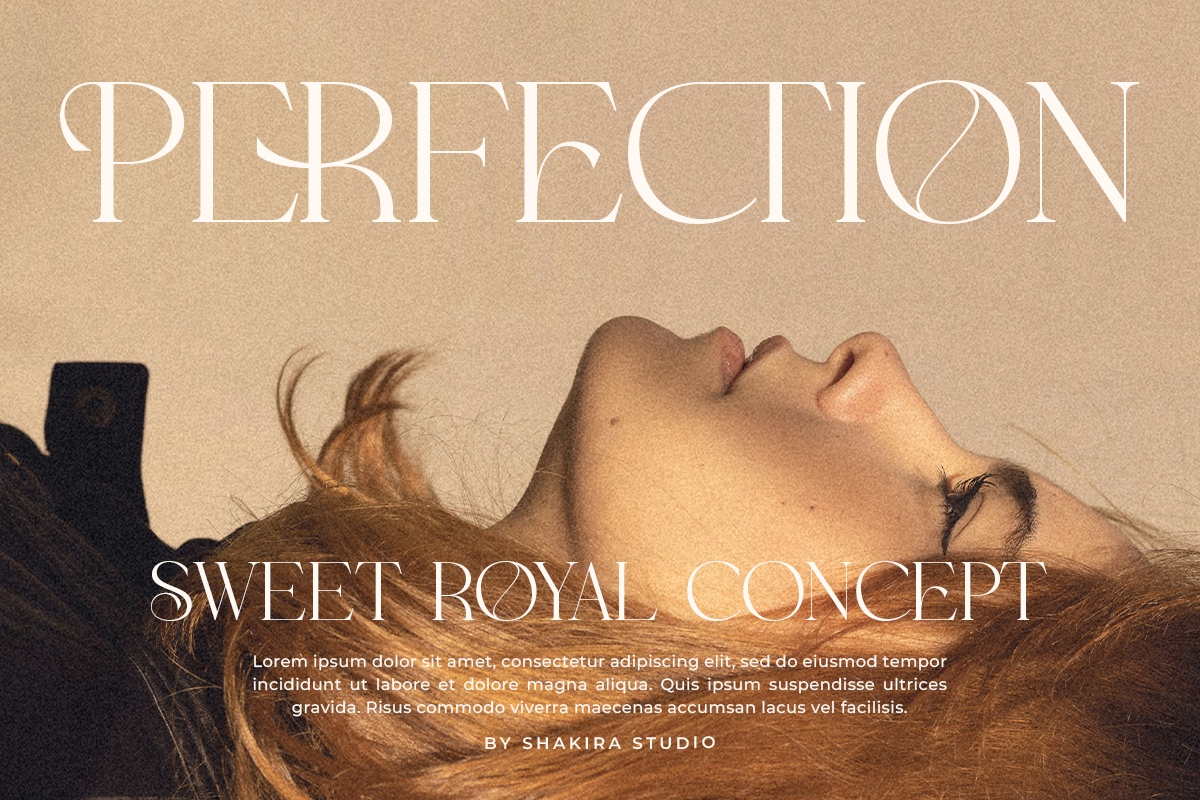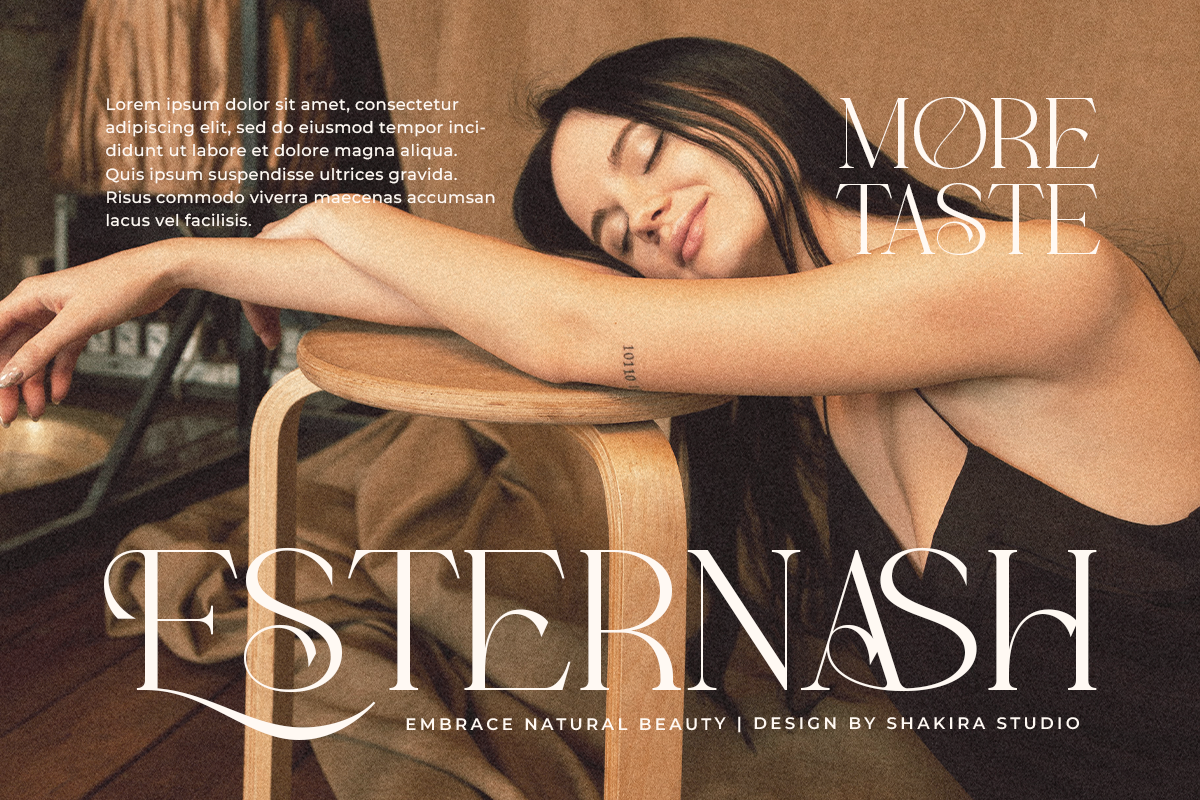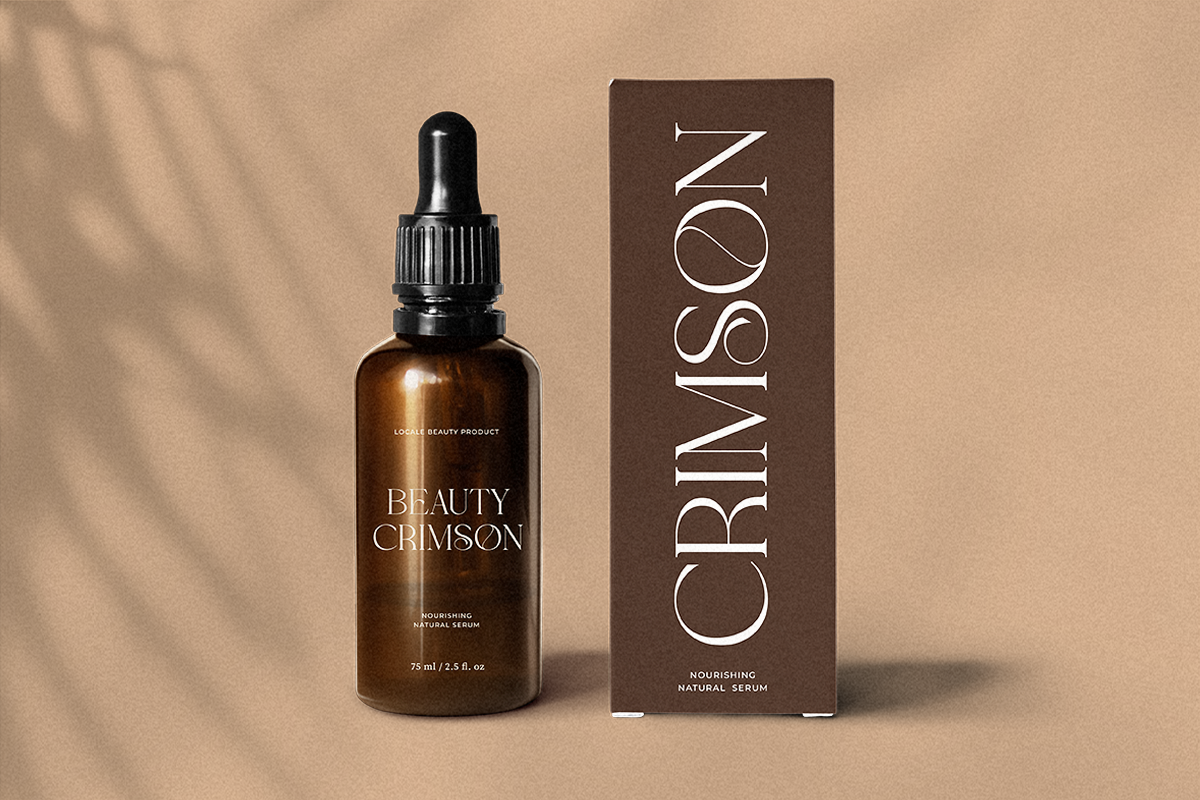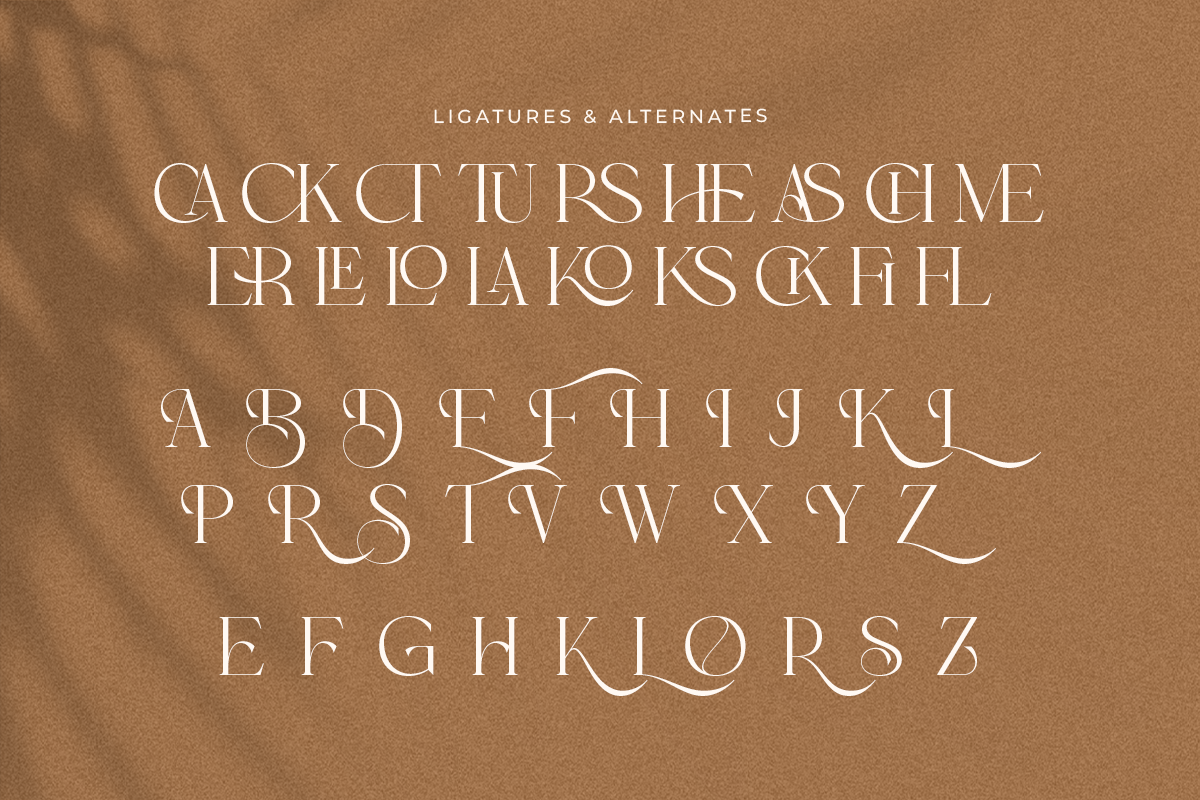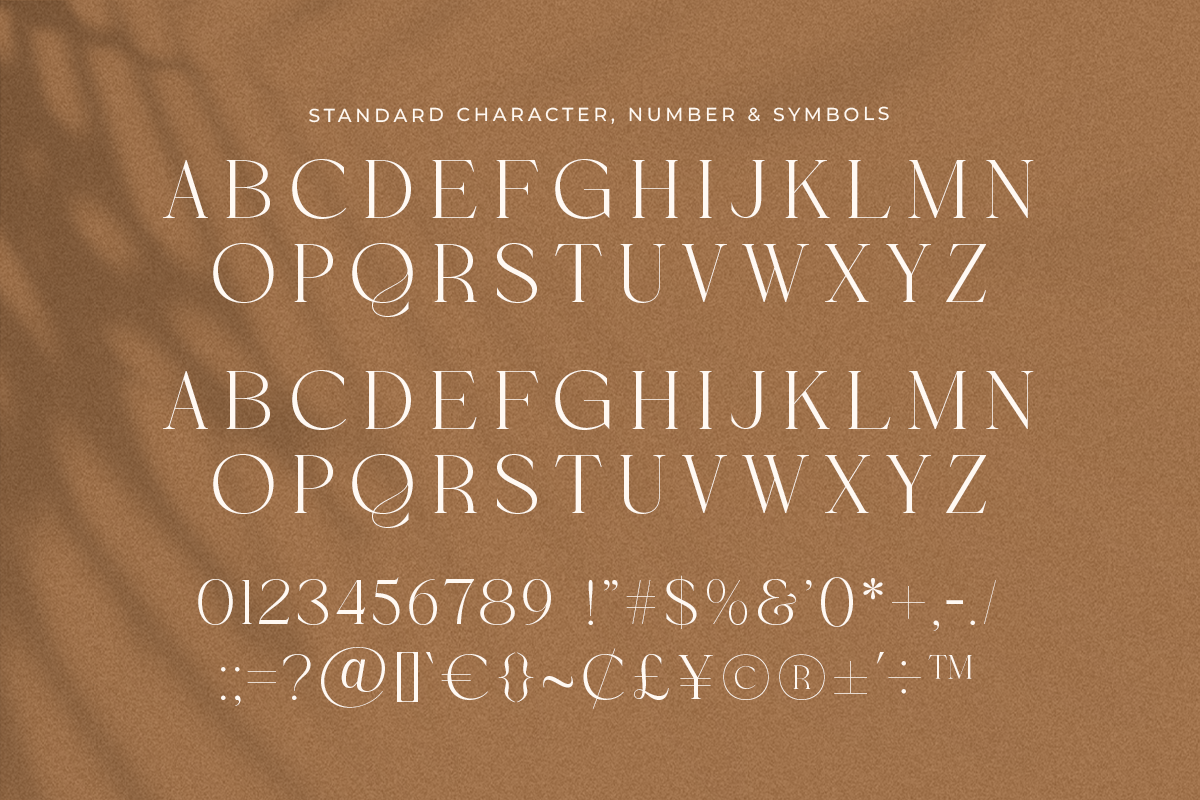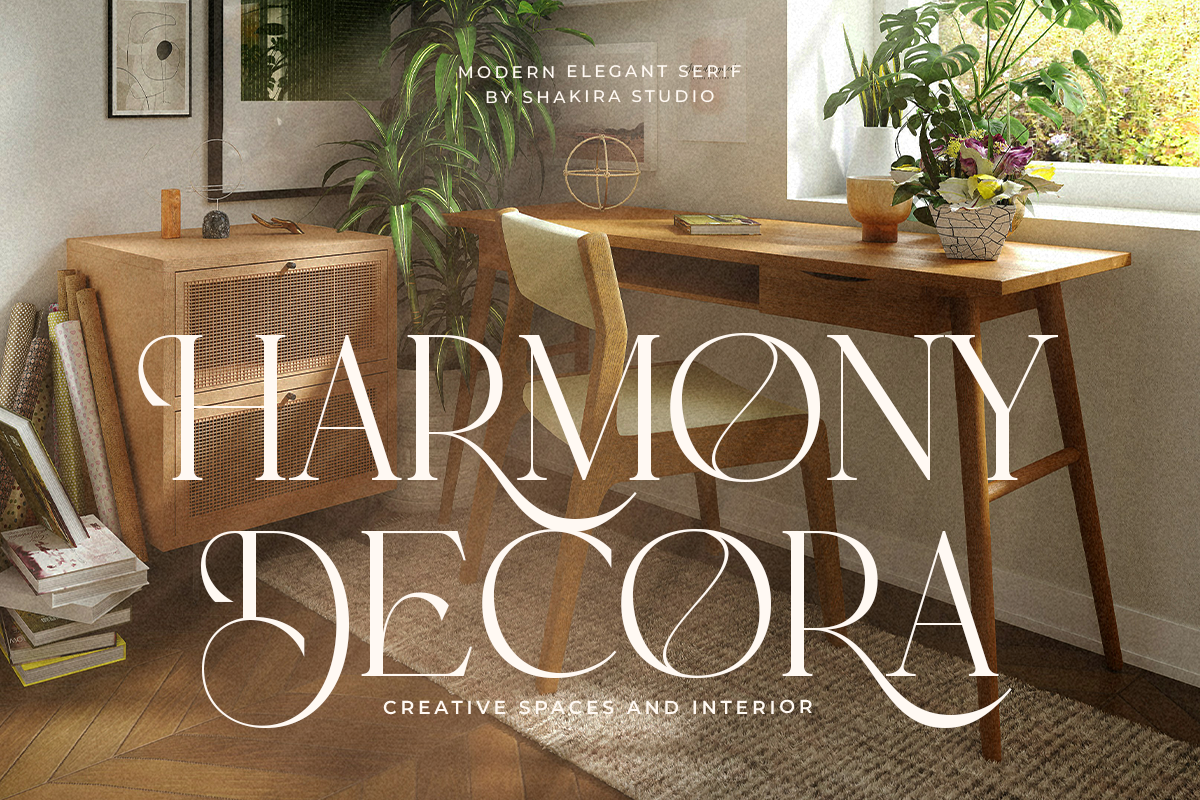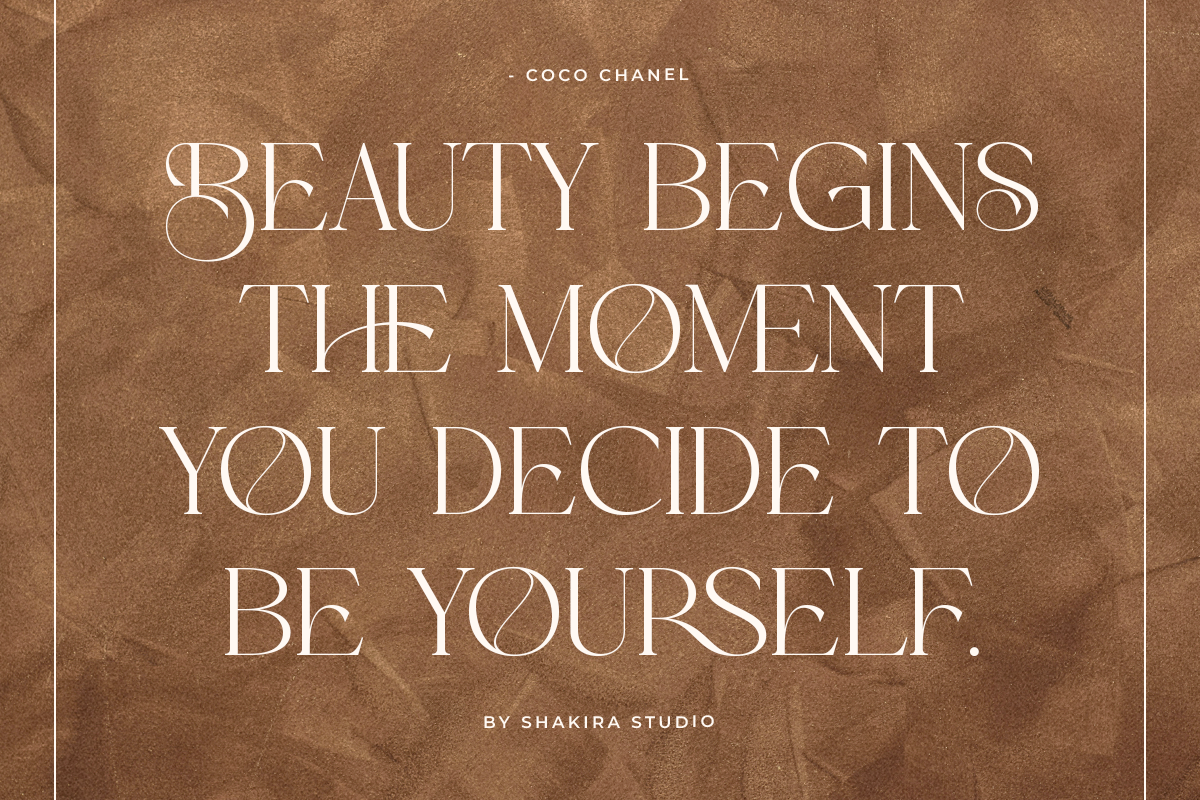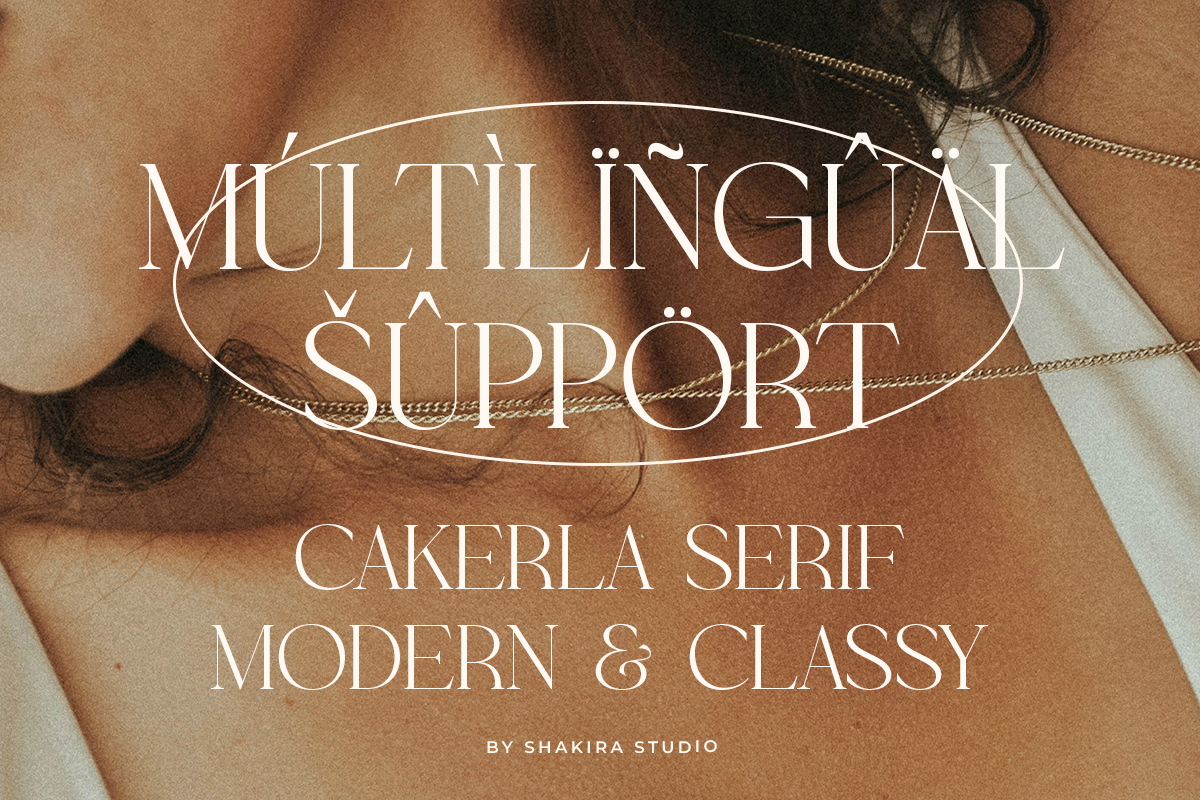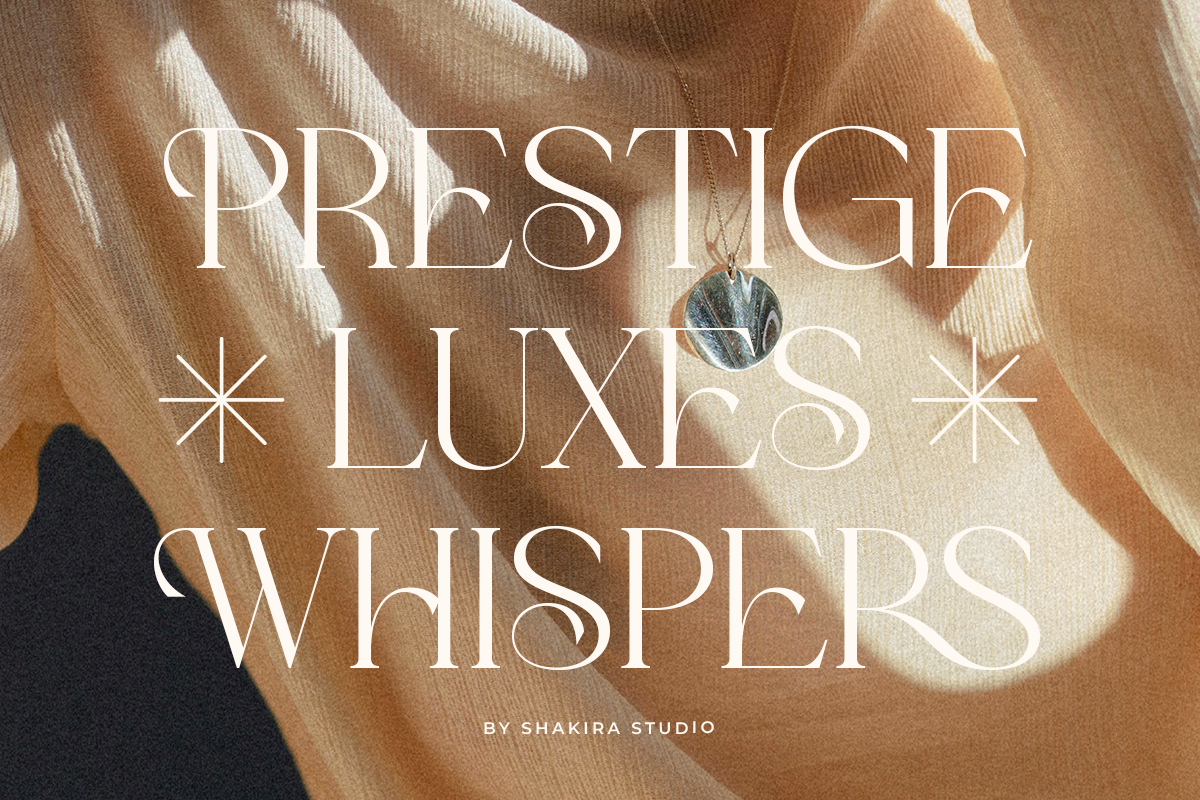
Cakorla - Modern Classy Serif
Introducing Cakorla - The Modern Classy Serif Font with Luxurious Character!
Cakorla is more than just a font; it's a celebration of sophistication and style. Perfectly embodying the essence of #ModernClassy and #TypographyTrends, Cakorla is designed to bring a touch of luxury to your designs.
With its elegant characters, stylish alternates, and exquisite ligatures, Cakorla adds a distinctive and opulent flair to any project. Whether you're designing high-end branding, elegant invitations, or refined editorial layouts, Cakorla ensures your work exudes class and elegance.
- Regular & Italic
- All Multilingual symbol
- Opentype features ( ligature, alternate )
Multilingual character supports : (Afrikaans, Albanian, Catalan, Croatian, Czech, Danish, Dutch, English, Estonian, Finnish, French, German, Hungarian, Icelandic, Italian, Lithuanian, Maltese, Norwegian, Polish, Portuguese, Slovenian, Spanish, Swedish, Turkish, Zulu)